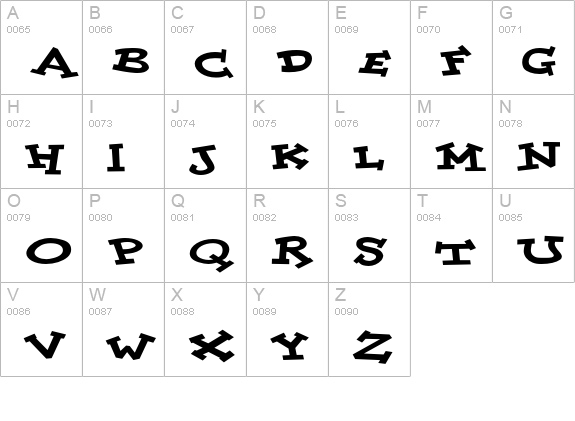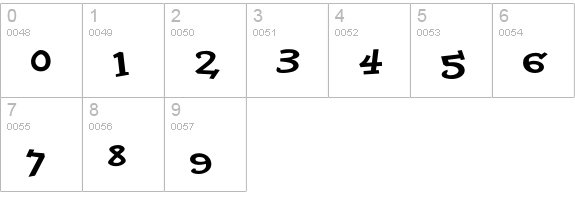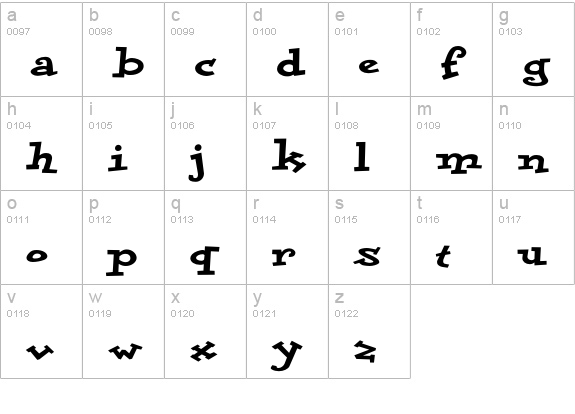
DoloresBlack Font Details
DoloresBlack font is a striking and stylish typeface that combines boldness with elegance. Its sleek lines and sharp edges make it perfect for adding a touch of sophistication to any design project. The strong presence of this font commands attention and ensures that your message will be seen and heard. What sets DoloresBlack font apart is its versatility, making it suitable for a wide range of applications, from branding and advertising to packaging and editorial design. Whether you're looking to make a bold statement or add a touch of class to your project, DoloresBlack font is sure to deliver. And the best part? DoloresBlack font is available for free download at FontsMarket.com. So go ahead and elevate your designs with this stunning typeface today!